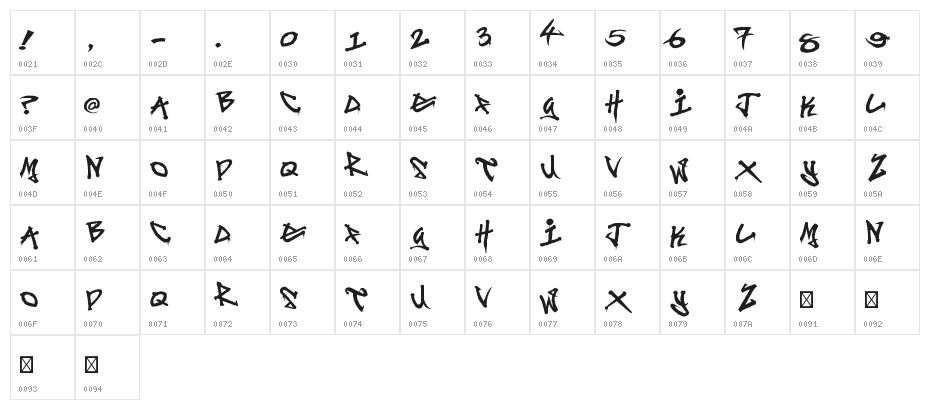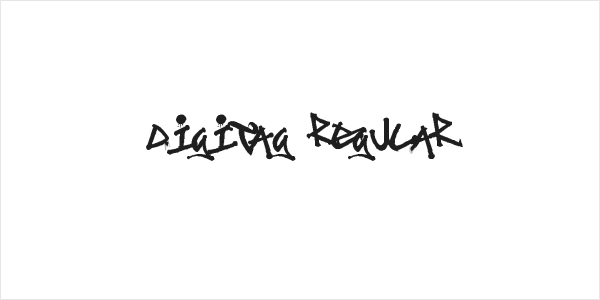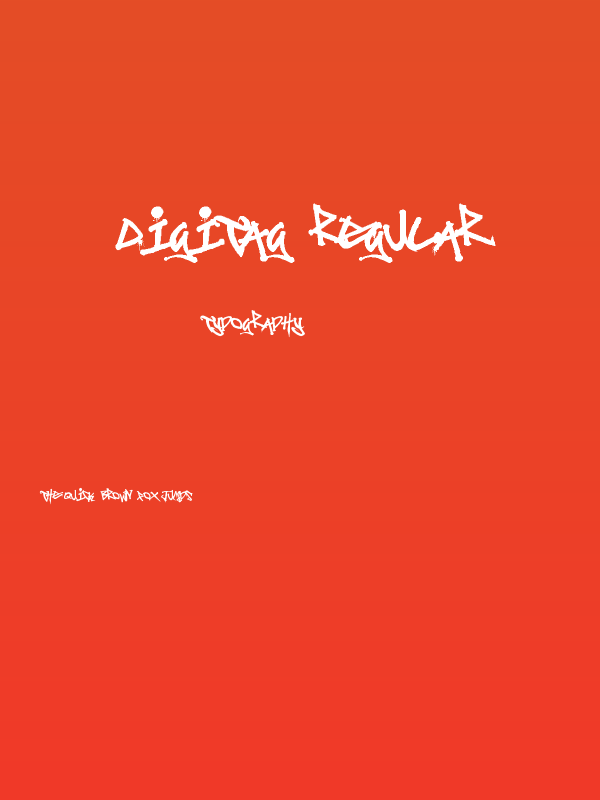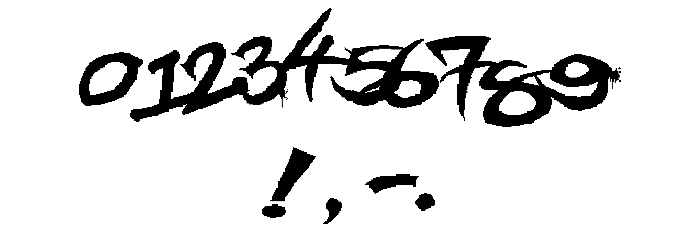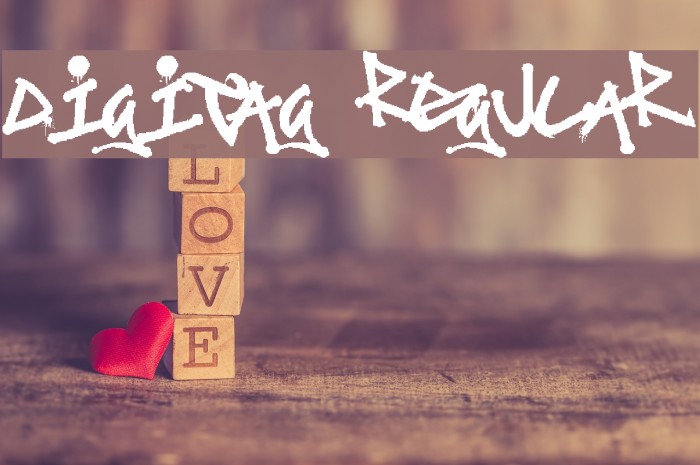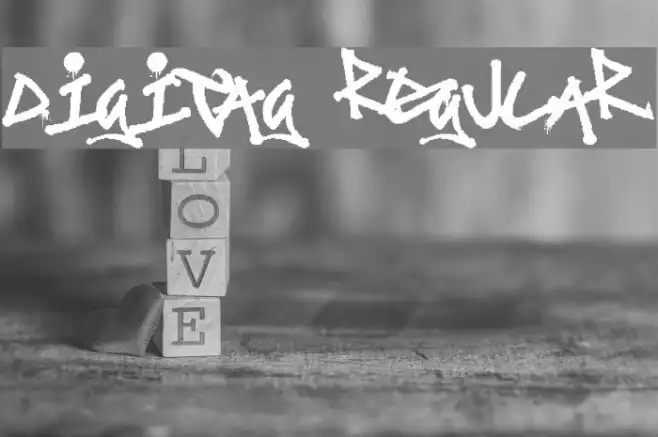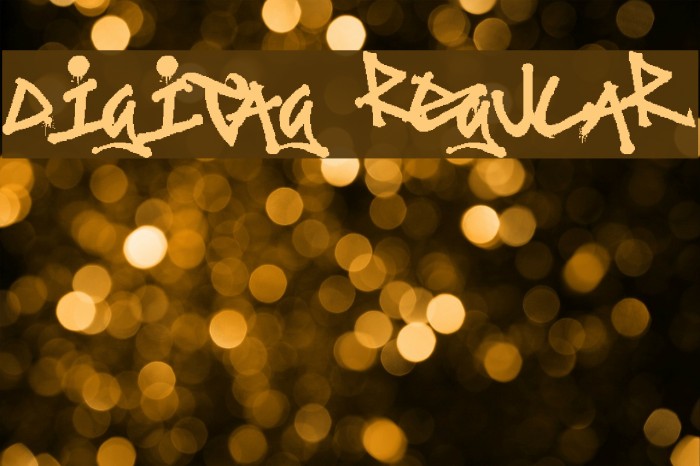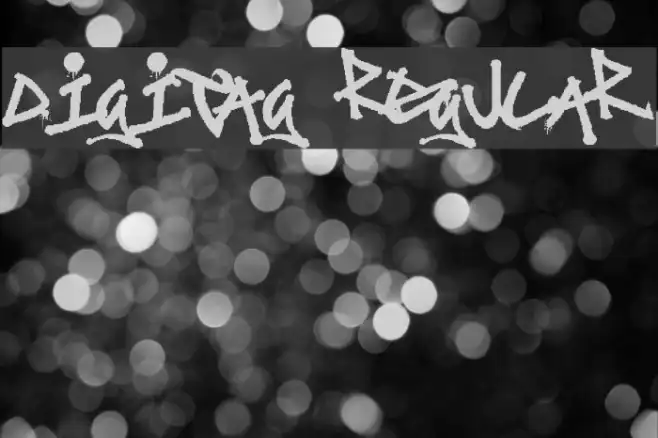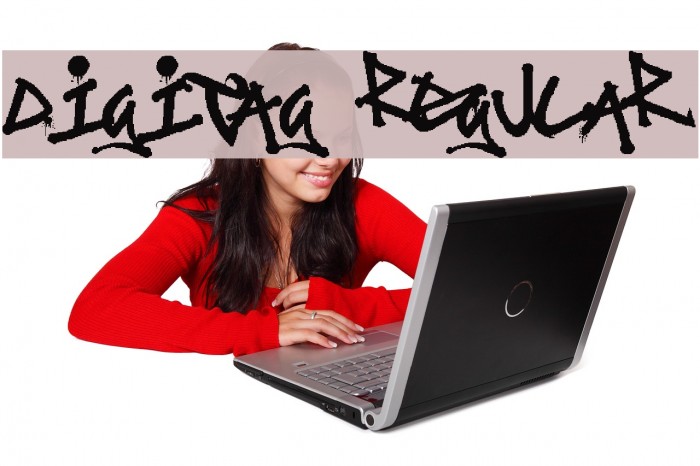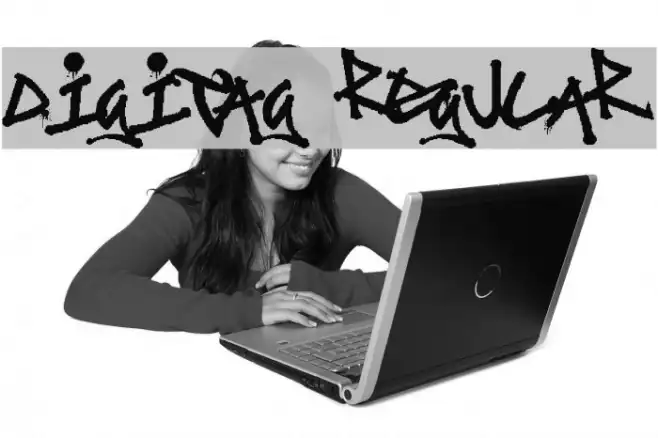
Digitag Regular Font
Digitag Regular Description
This font exudes a bold and dynamic graffiti style, characterized by its sharp, angular lines and energetic strokes. The letters are highly stylized, with a sense of movement and flair that captures the essence of street art. The uppercase and lowercase letters maintain a consistent aesthetic, with exaggerated curves and pointed edges that create a sense of urgency and rebellion. Numbers and special characters follow the same design principles, ensuring a cohesive look across all elements. The overall appearance is raw and edgy, making it perfect for projects that require a strong, urban vibe.
| Overall Style | Urban, Edgy, Graffiti |
| Use Case | Logos, Posters, Album Covers |
| Proposed Projects | Ideal for street art projects, urban-themed designs, music album covers, and edgy branding. |